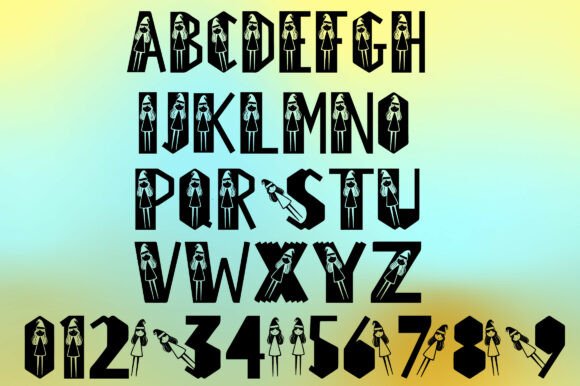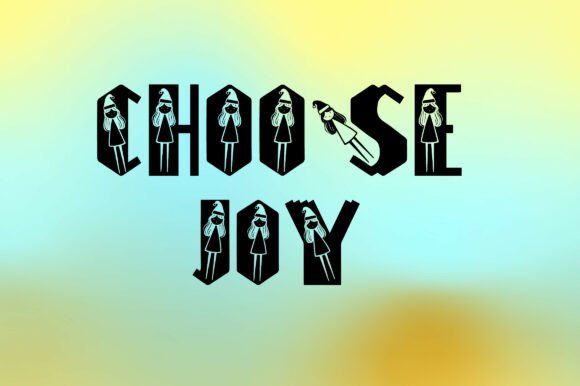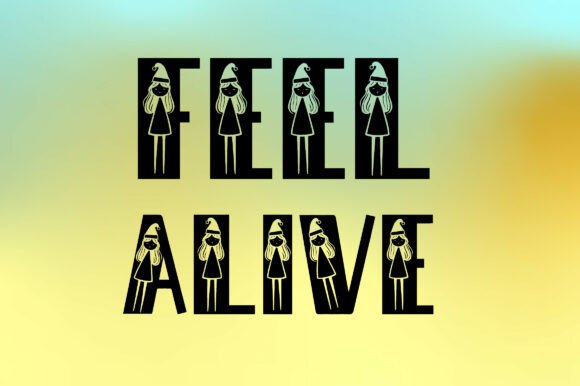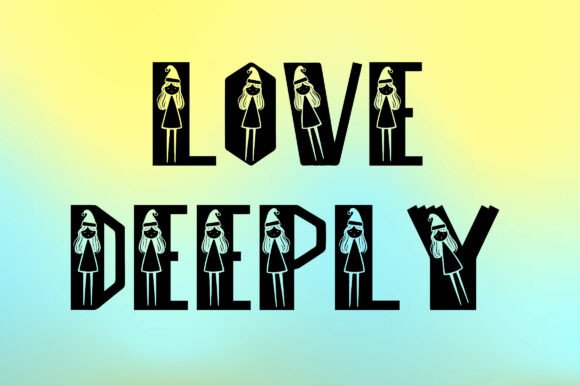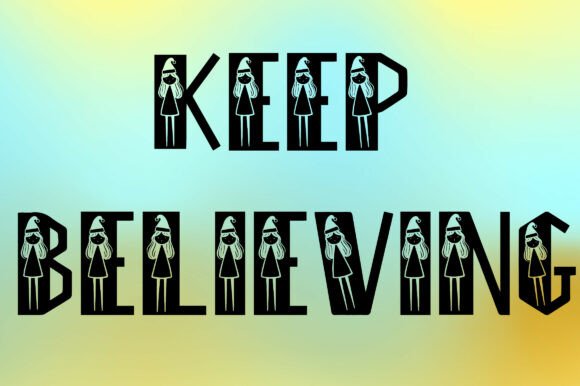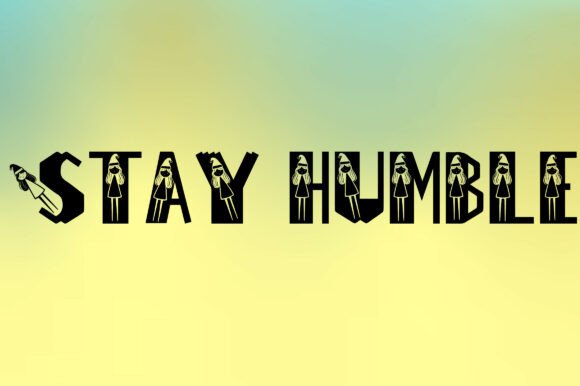
Introducing Farry Font: The Ultimate Holiday Typeface for Designers and Crafters
Are you looking for a font that captures the essence of the holiday season? Do you want to add a touch of whimsy and playfulness to your designs? Look no further than Farry Font, a delightful typeface inspired by adorable Christmas girls and the joyful spirit of the holiday season. In this article, we’ll dive into the world of Farry Font and explore its features, uses, and benefits for designers and crafters.
A Font that Embodies the Holiday Spirit
Farry Font is a charming decorative typeface that exudes warmth, fun, and festive personality. Its unique design is inspired by the magic of Christmas and the joy of the holiday season. With Farry Font, you can add a cute and magical touch to any project, making it perfect for holiday invitations, greeting cards, party decorations, posters, packaging, social media graphics, and more.
Endless Opportunities for Creativity
One of the best things about Farry Font is its versatility. This font offers endless opportunities for creativity and self-expression, allowing you to bring your imagination to life. Whether you’re designing a holiday invitation, a festive poster, or a social media graphic, Farry Font provides the perfect combination of playfulness and sophistication.
Farry Font is an excellent choice for designers and crafters who want to add a personal touch to their projects. With its charming and whimsical design, this font is perfect for:
- Holiday invitations and greeting cards
- Party decorations and posters
Key Features of Farry Font
So, what makes Farry Font so special? Here are some of its key features:
- Charming decorative style inspired by adorable Christmas girls
- Playful and whimsical design
- Warm and festive personality
- Perfect for holiday projects and designs
- Endless opportunities for creativity and self-expression
Tips for Using Farry Font
To get the most out of Farry Font, here are some tips for using this delightful typeface:
- Pair Farry Font with other festive fonts for a unique look
- Use Farry Font for headings and titles to add a touch of whimsy
- Experiment with different colors and textures to enhance the festive feel
- Combine Farry Font with illustrations and graphics for a playful design
In conclusion, Farry Font is a wonderful and playful typeface that captures the essence of the holiday season. With its charming decorative style, warm and festive personality, and endless opportunities for creativity, this font is perfect for designers and crafters who want to add a touch of magic to their projects. Whether you’re designing a holiday invitation, a festive poster, or a social media graphic, Farry Font is the perfect choice. So why wait? Get creative with Farry Font and spread some holiday cheer!